Does anyone know the steps in order to achieve this font effect?
Trying to add "vibrating" effect to font similar to examples below:
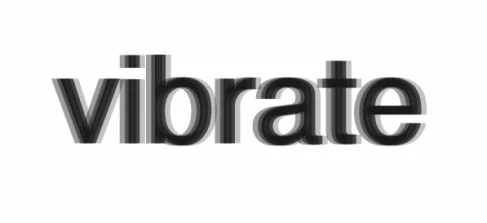
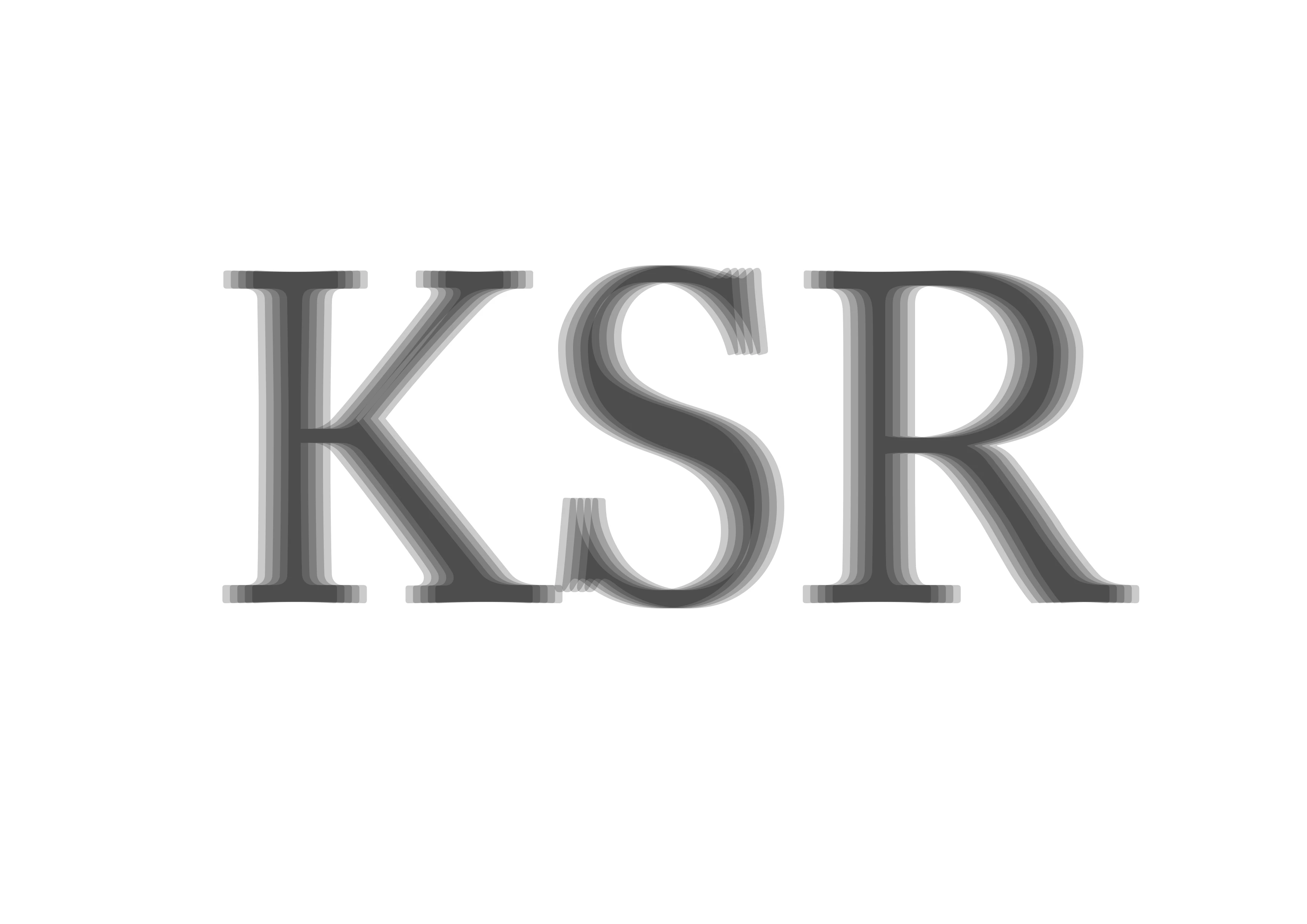
The top one I would just duplicate your type layer twice, screen them back and offset them left and right.
The second one I would Rasterize the type and use Gaussian blur.